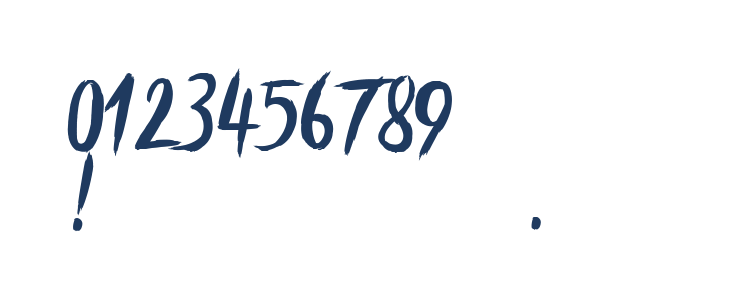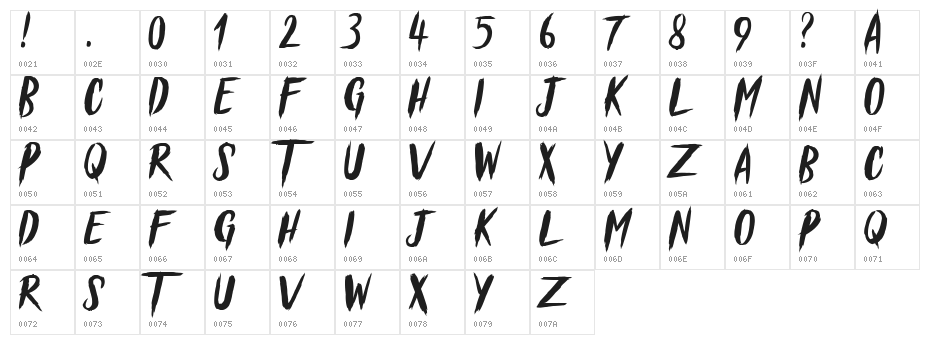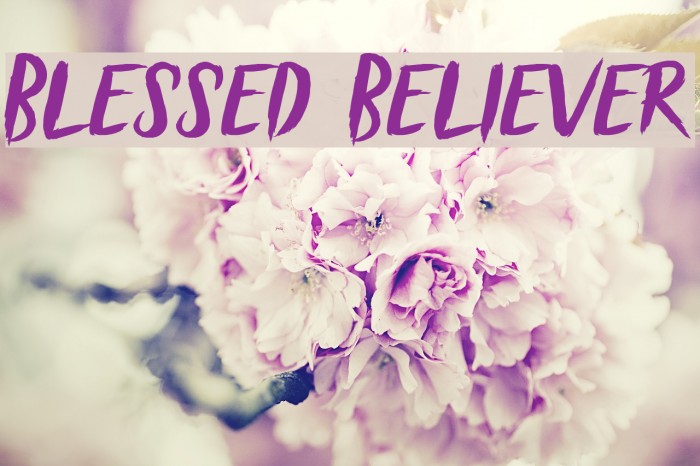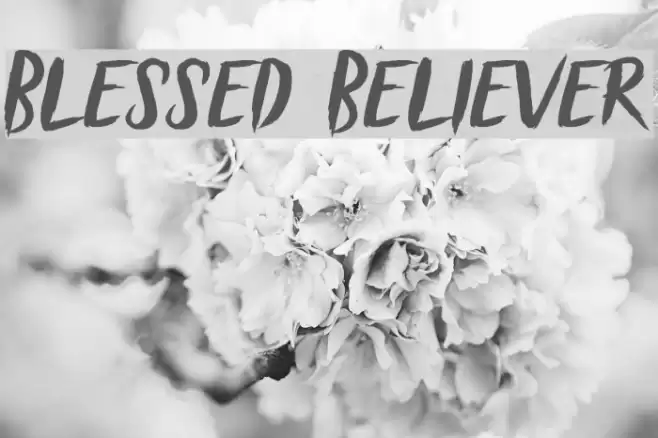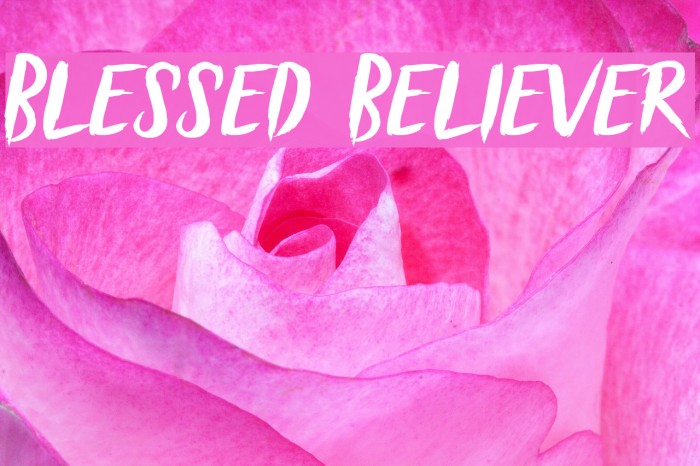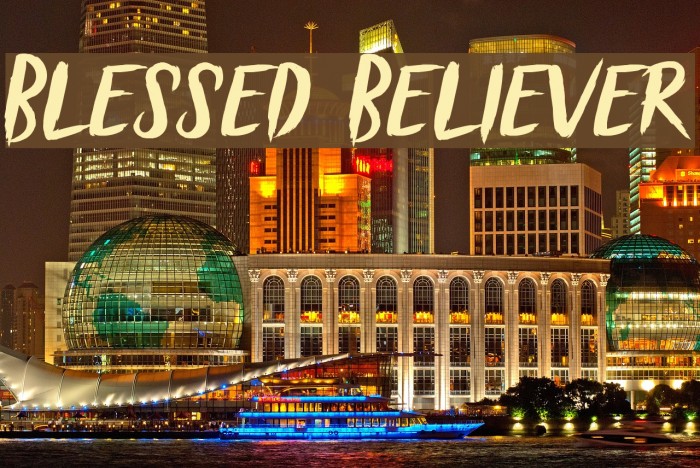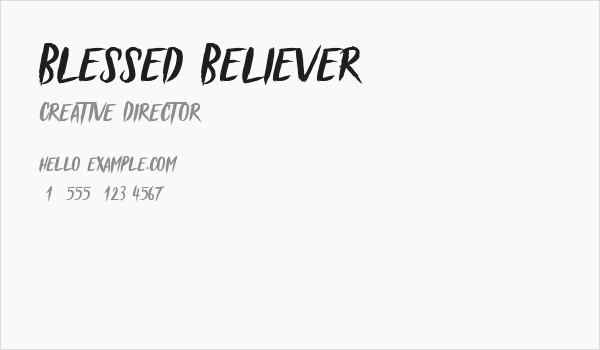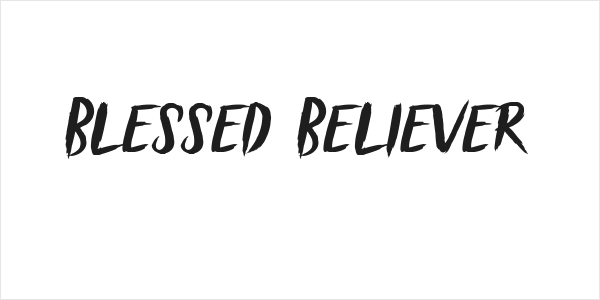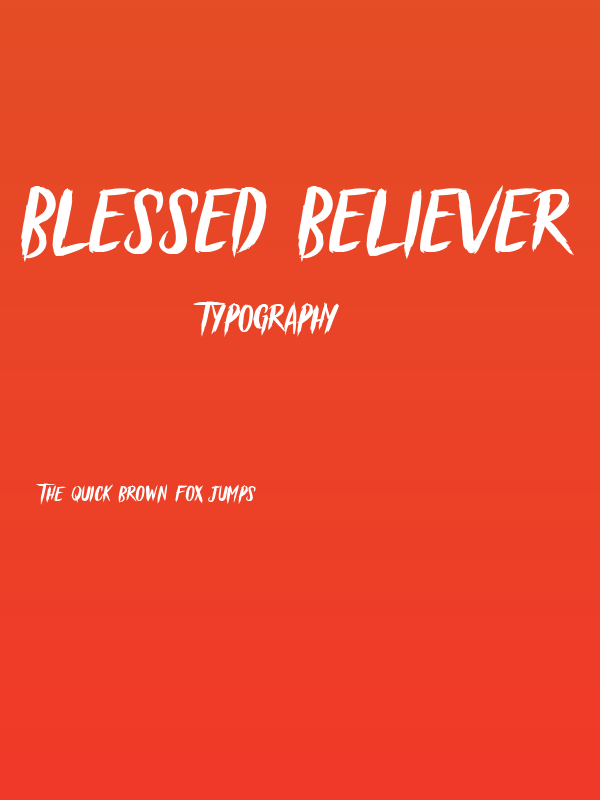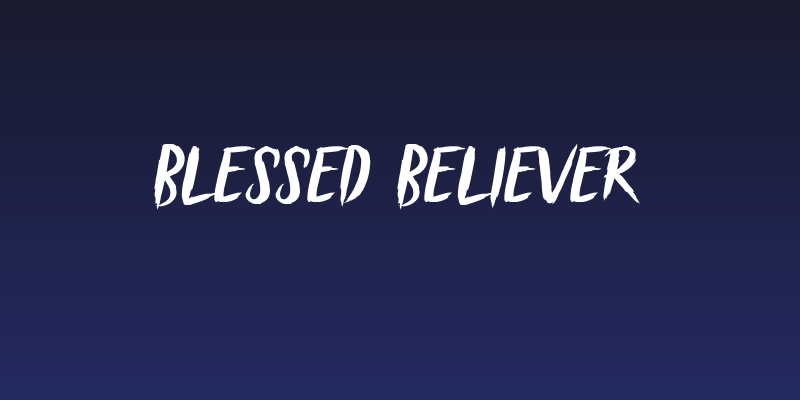
Blessed Believer Font
Blessed Believer Description
This font features a bold and dynamic brush script style, characterized by its energetic and fluid strokes. The letters exhibit a hand-painted appearance, with varying thickness that adds a sense of movement and vitality. The uppercase and lowercase letters maintain a consistent style, with sharp angles and elongated forms that create a striking visual impact. The numbers and special characters follow the same aesthetic, ensuring a cohesive look across all elements. This font's expressive nature makes it ideal for projects that require a strong and artistic touch.
Proposed ProjectsIdeal for branding, posters, album covers, and any creative project that seeks to convey energy and artistic flair.